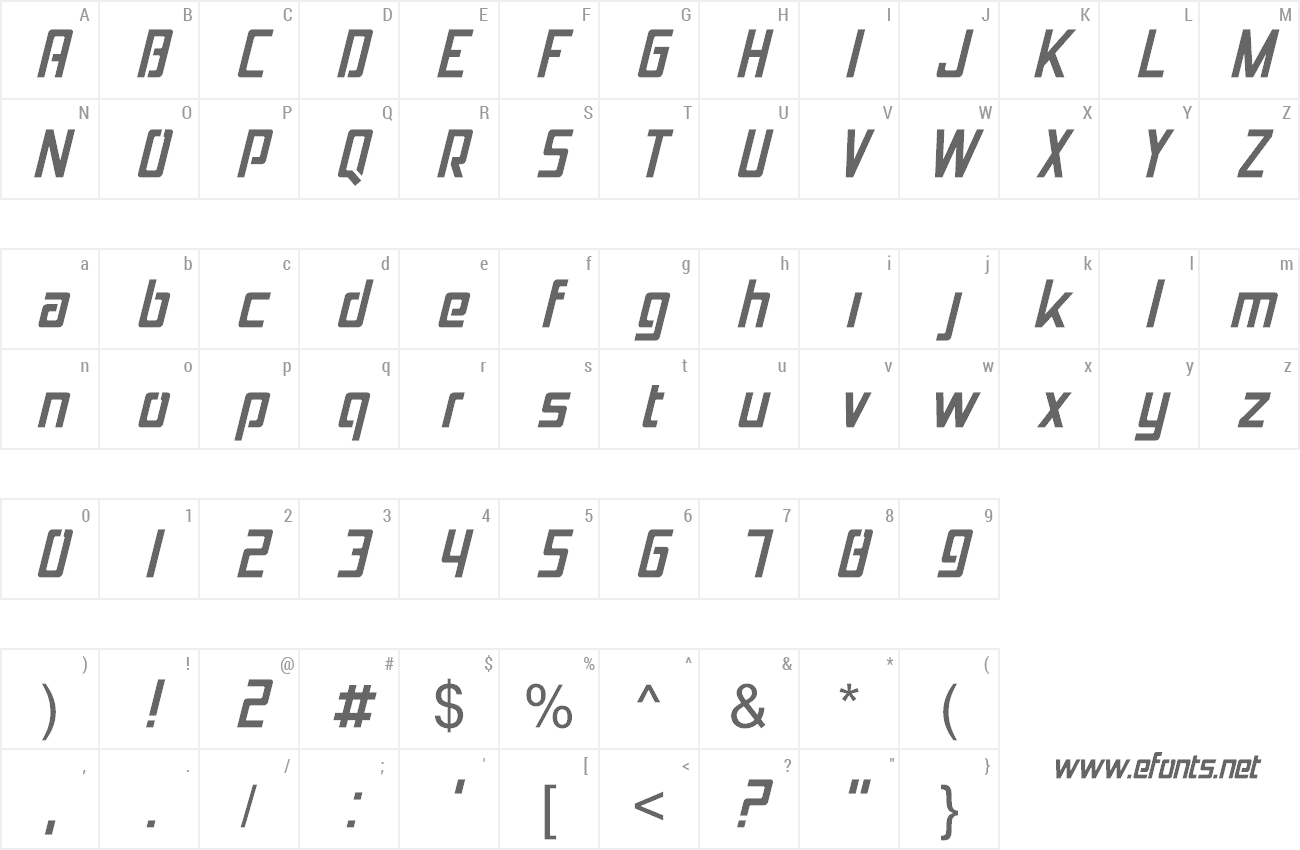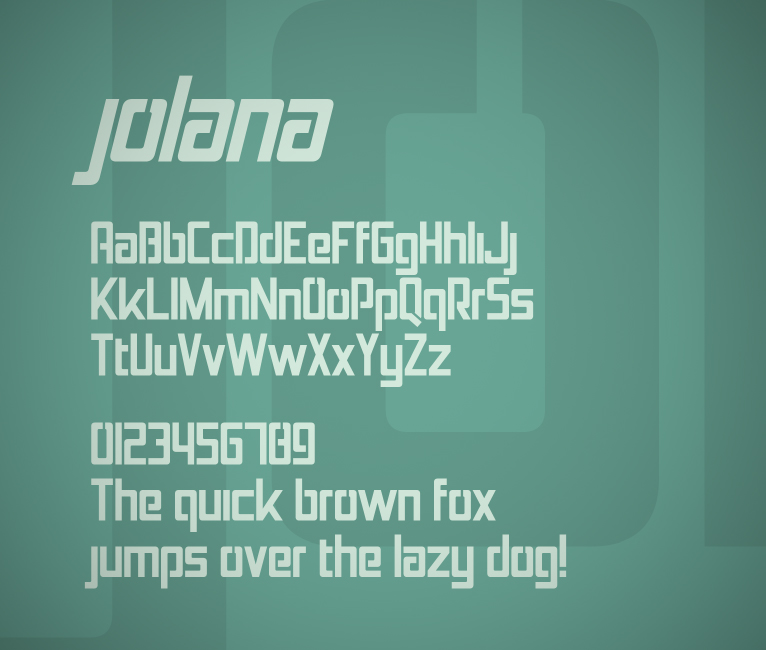
Preview and download Jolana Font. Created by Zdeněk Gromnica a.k.a. FutureMillennium in Techno Various styles with Free for personal use license.
Free for non-commercial use only. To purchase a commercial license, please go to http://futuremillennium.com/fonts/license/jolana or contact me. A sans serif stencil face. Comes in regular and italic. If this font lacks symbols that you need or you spot a strange looking kerning pair, please let me know! Licensed under the Creative Commons Attribution-NonCommercial-NoDerivs 3.0 Unported License (CC BY-NC-ND 3.0) |